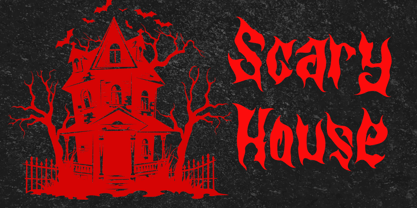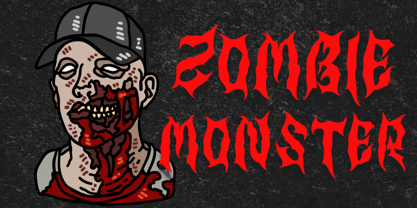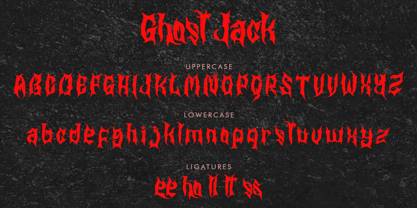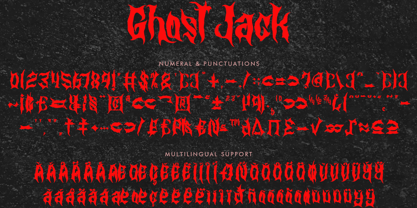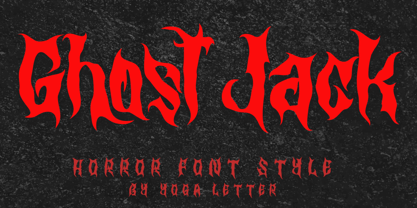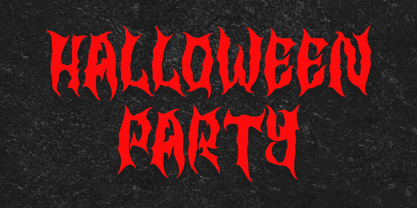
Ghost Jack
by Yoga Letter
The Ghost Jack Font Family was designed by Isroni Yoga Prasetya and published by Yoga Letter. Ghost Jack contains 1 styles. More about this family
"Ghost Jack" is a unique horror display font. It features uppercase and lowercase letters, ligatures, numerals, punctuations, and multilingual support. It's perfect for Halloween, horror movies, Christmas, banners, posters, print, branding, stickers, logos, Procreate, sublimation, and more.